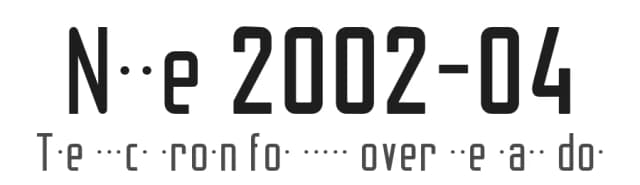
About Nike Total 90 Font
Nike Total 90 is a sans-serif font designed by Daniel Gellatley. It includes 76 glyphs, a regular weight, and TTF (TrueType) format. Nike Total 90 is free to download; check the license details on this page before commercial use. Sans-serif fonts like Nike Total 90 work best for clean body text, user interfaces, branding, and modern layouts.
Nike Total 90 Font is a versatile sans-serif font that works for both headings and body text. Pair it with a contrasting serif or slab serif font to add visual interest and a clear distinction between titles and body copy.